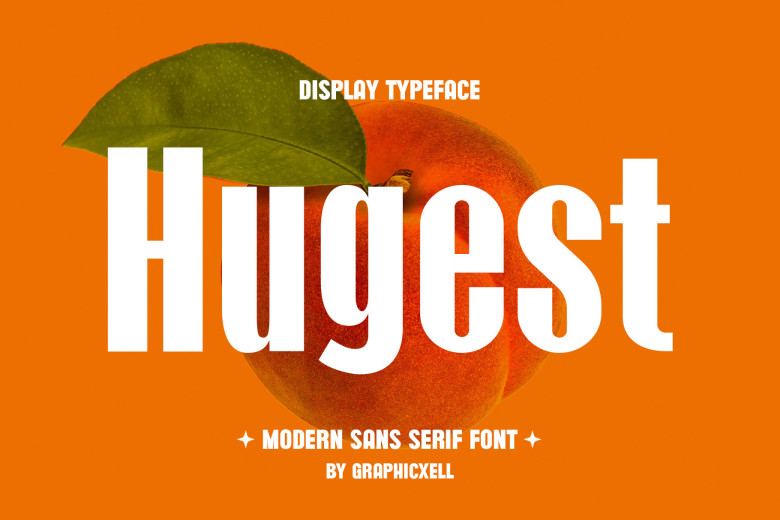
Hugest Font
Hugest Font was inspired by the iconic minimalism logo and is ideal for use when designing templates, brochures and videos, branding advertising, logo design, invitation layout design, elegance crafting beauty design and much more.
Hugest Sans Serif Font